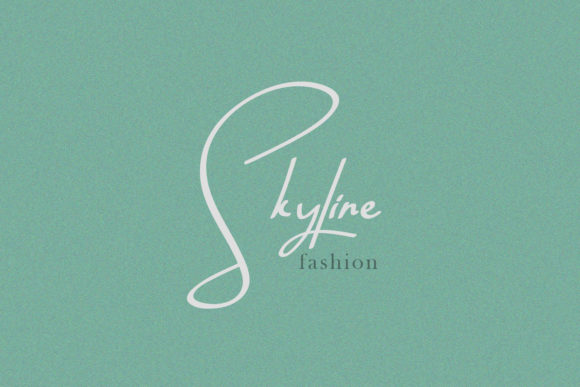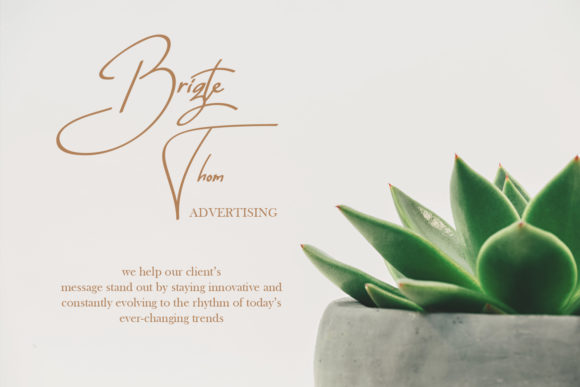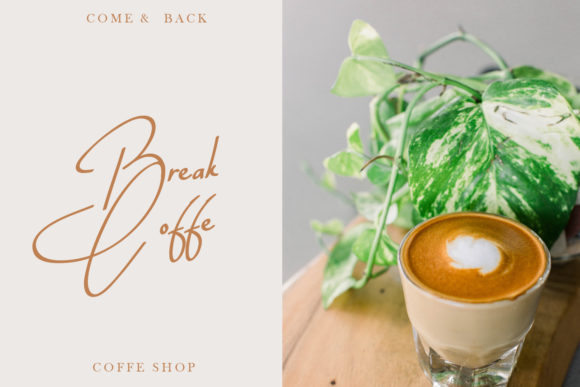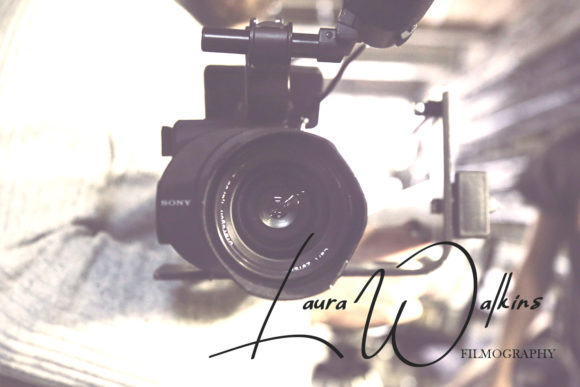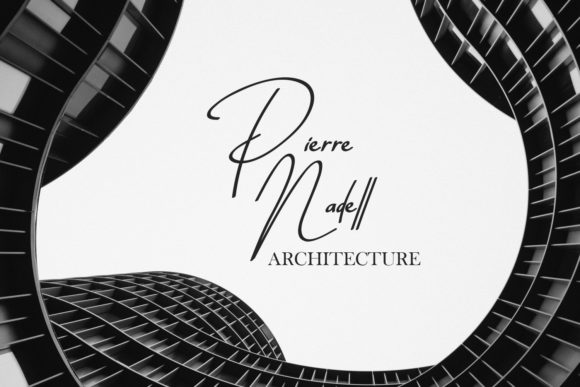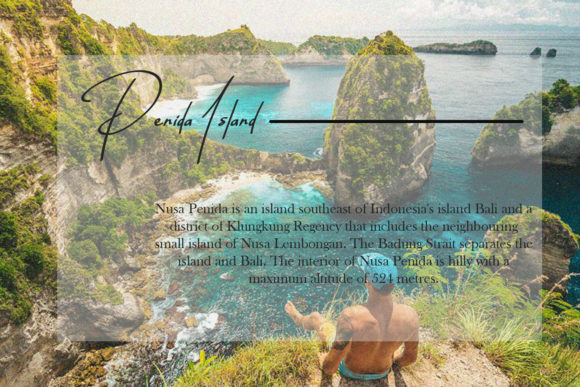
Introducing Baginda Font: Elevate Your Designs with a Friendly and Bold Script
Are you tired of using the same old fonts in your design projects? Look no further than Baginda Font, a stunning script font that is sure to add a touch of elegance and sophistication to any design. With its friendly and bold style, Baginda is perfect for designers and crafters looking to make a statement.
What Sets Baginda Apart
Baginda Font is a unique and eye-catching script font that boasts amazing swashes, giving it an editorial look that will elevate any design project. Its bold and friendly style makes it perfect for a wide range of applications, from branding and advertising to packaging and editorial design.
Key Features of Baginda Font
- Bold and Friendly Style: Baginda Font has a bold and friendly style that is sure to grab attention.
- Amazing Swashes: The font features amazing swashes that add an editorial look to any design project.
- Highly Versatile: Baginda is perfect for a wide range of applications, from branding and advertising to packaging and editorial design.
- Easily Readable: Despite its bold style, Baginda is easily readable, making it perfect for body text and headlines.
Uses of Baginda Font
Baginda Font is highly versatile and can be used in a wide range of design projects, including:
- Branding and Advertising: Use Baginda to create eye-catching logos, ads, and marketing materials that will grab attention.
- Editorial Design: Add an editorial look to your publications with Baginda’s amazing swashes and bold style.
- Packaging Design: Use Baginda to create stunning packaging designs that will stand out on store shelves.
- Digital Design: Baginda is perfect for digital designs, including social media graphics, website headers, and more.
Tips for Using Baginda Font
Here are a few tips for using Baginda Font in your design projects:
- Use it as a Headline Font: Baginda is perfect for headlines and titles, where its bold style can really make an impact.
- Pair it with a Simple Font: Pair Baginda with a simple font for body text to create a striking contrast.
- Experiment with Swashes: Don’t be afraid to experiment with Baginda’s amazing swashes to add an editorial look to your designs.
Baginda Font is a stunning script font that is sure to elevate any design project. With its friendly and bold style, amazing swashes, and high versatility, it’s perfect for designers and crafters looking to make a statement. Whether you’re working on a branding project, editorial design, or packaging design, Baginda is a great choice. So why not give it a try and see the impact it can have on your designs?